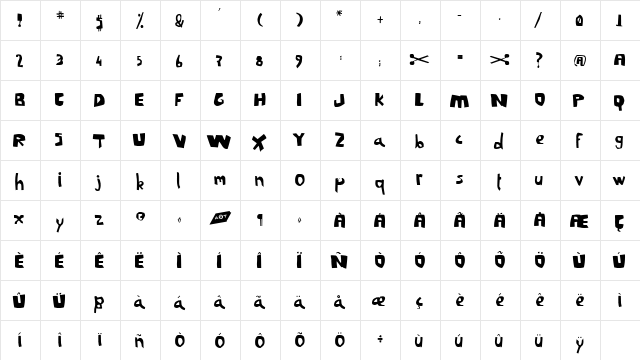
LaSibane Medium Font Preview
LaSibane Medium
LaSibane Medium Font Details
Design Context for LaSibane Typeface
LaSibane is a composed and adaptable typeface that performs quietly and consistently across a wide range of design contexts.
Pro Tip: Pair LaSibane with a font of contrasting weight or personality to build a more expressive typographic hierarchy.